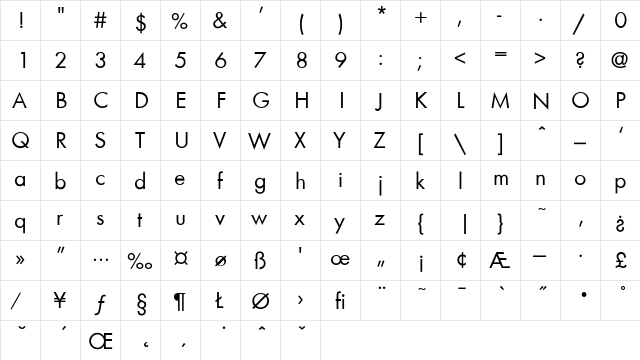
Perry-Normal Regular
Design Context for Perry-Normal Typeface
Perry-Normal offers clean, dependable letterforms without strong stylistic allegiance, making it a practical choice for designers who need flexibility.
Pro Tip: Pair Perry-Normal with a font of contrasting weight or personality to build a more expressive typographic hierarchy.